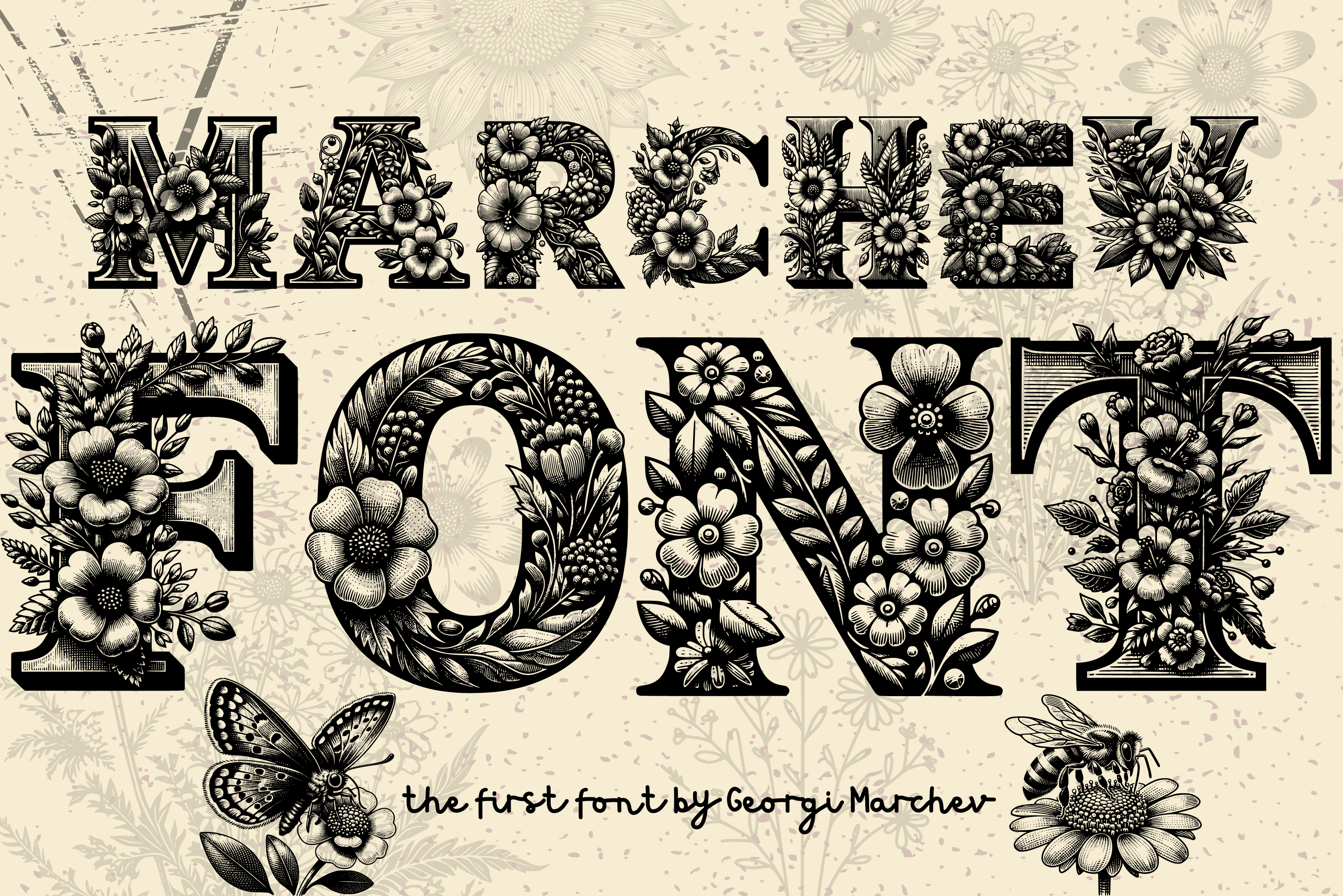
Vintage Floral Font "Marchev"
Introducing "Marchev" – a captivating vintage floral font meticulously crafted to bring elegance and charm to your creative projects. Designed with intricate floral elements and a nostalgic touch, Marchev seamlessly blends classic aesthetics with modern versatility. Perfect for branding, wedding invitations, posters, and more, this unique typeface adds a touch of timeless beauty to any design. Let Marchev elevate your work with its delicate yet bold presence, making every piece a standout masterpiece. When you purchase the font you receive it in .ttf